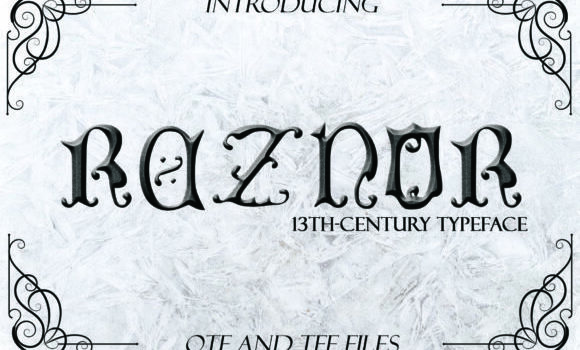
Reznor Font – Free Download Introduction to Reznor Font Reznor is a 13th-century decorative typeface with a stunning twist. 📸 Preview Gallery 3 images 📌 Product Name Reznor Font 👤 Author denestudios 📂 Category Explore ⬇️ Download Reznor Font FREE